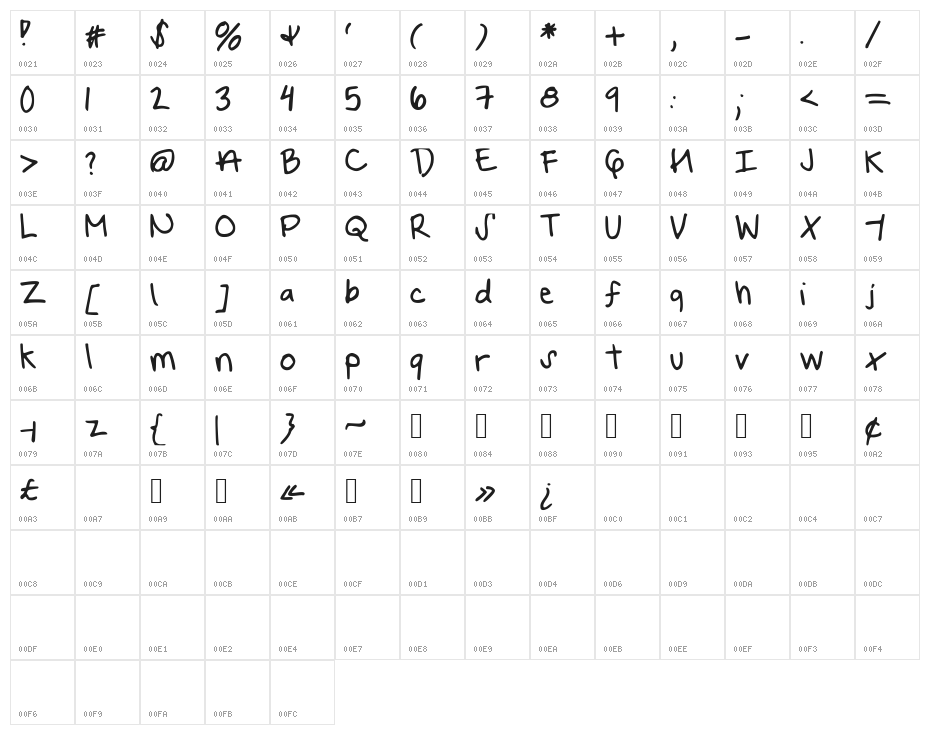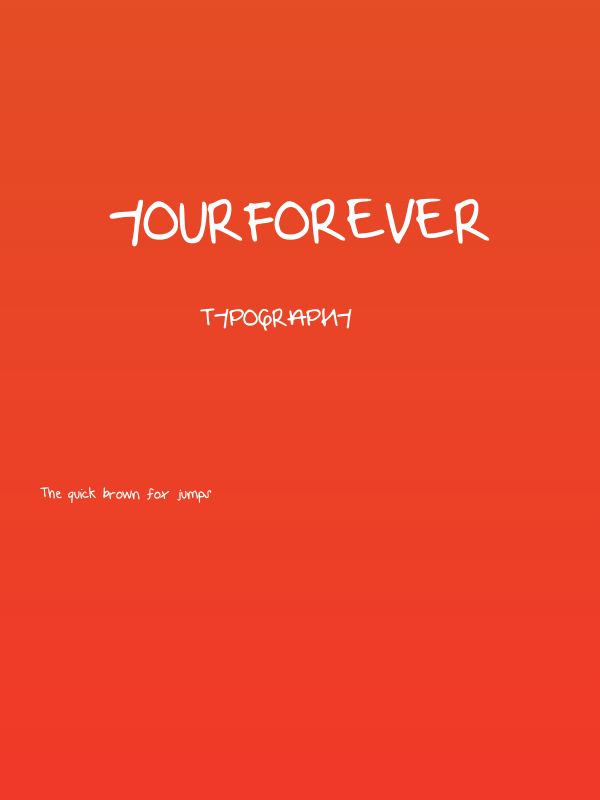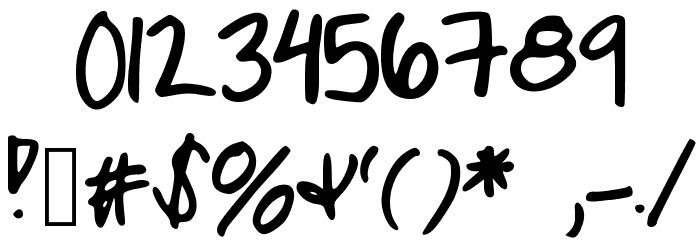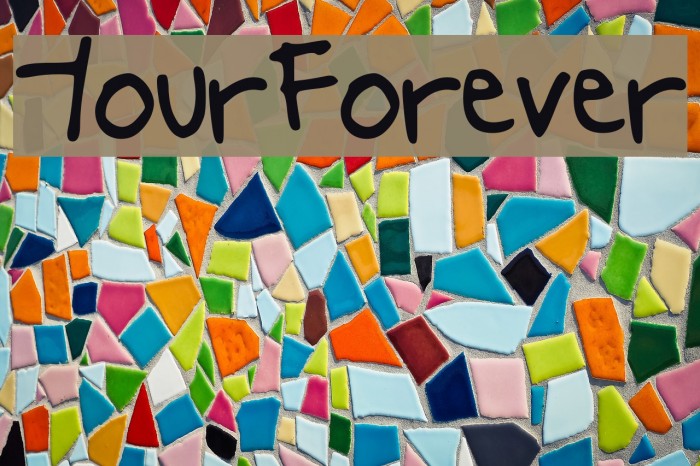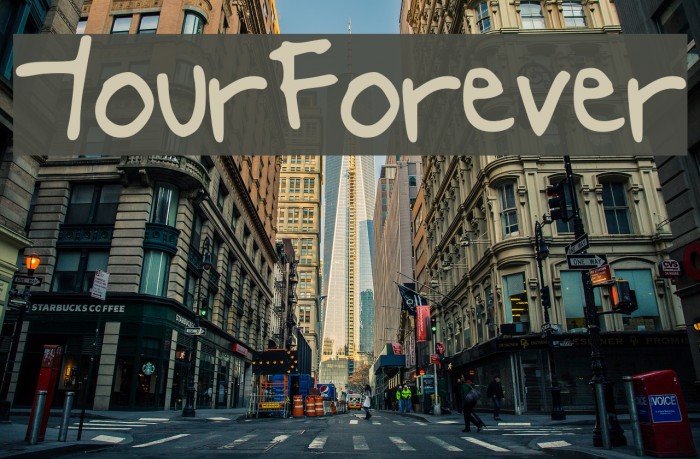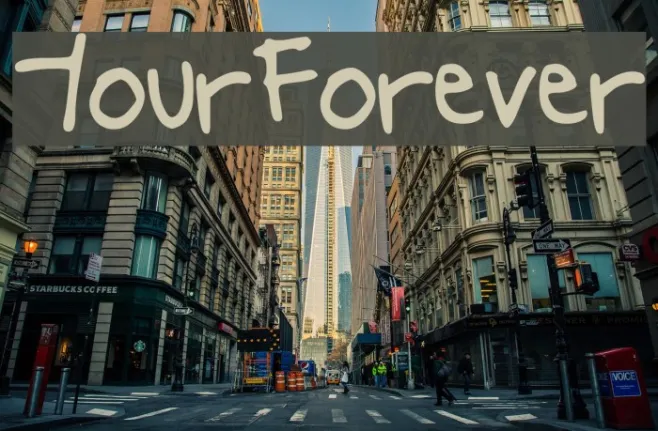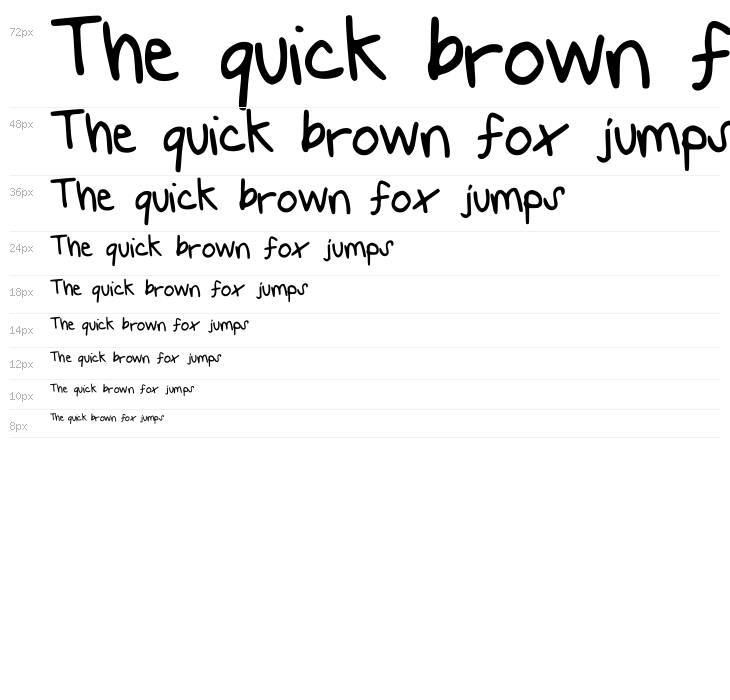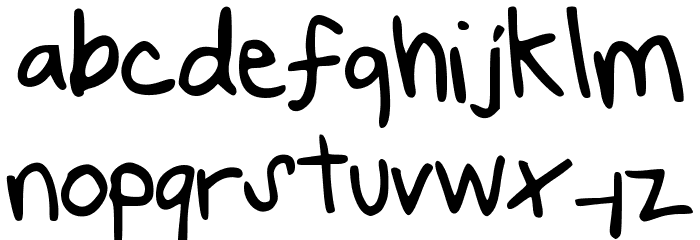
YourForever Font
YourForever Description
This font exudes a playful and casual handwritten style, characterized by its rounded and slightly irregular letterforms. The strokes are consistent in thickness, giving it a uniform appearance while maintaining a sense of individuality in each character. The uppercase and lowercase letters are well-balanced, with a slight tilt that adds to the informal aesthetic. The numerals and special characters follow the same playful design, making the font versatile for various uses. Its friendly and approachable look makes it ideal for projects that require a personal touch.
| Proposed Projects | Ideal for greeting cards, children's books, personal blogs, and informal branding. |